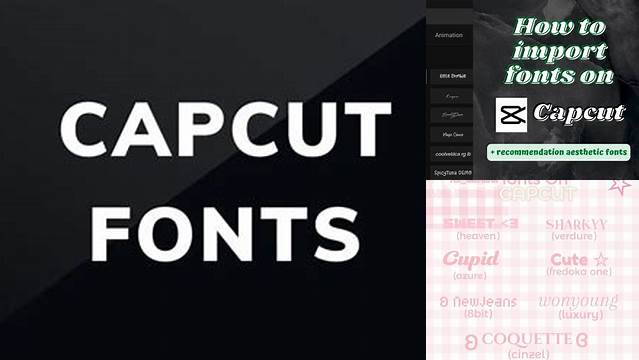
CapCut Fonts: Level Up Your Videos!
Hey everyone! Are you ready to spice up your CapCut game? Choosing the right font can seriously transform your videos, making them pop and grabbing your audience's attention. It’s like the secret ingredient that takes your content from 'meh' to 'WOW'! In this guide, we're diving deep into the world of cool fonts to use on CapCut, giving you the inside scoop on what works best and how to use them like a pro. Whether you're a seasoned video editor or just starting out, this is your ultimate resource. So, buckle up, because we're about to make your videos look amazing!
1. The Importance of Font Choice in CapCut Videos
Okay, guys, let’s talk font fundamentals. Choosing the right font is way more important than you might think. It’s not just about picking something pretty; it's about enhancing your message and making your videos more engaging. Think of your font as the voice of your video. It sets the tone and helps your viewers understand what you're trying to convey. A playful font might be perfect for a comedy skit, while a sleek, modern font works wonders for a business promotion. Get it wrong, and your video could look unprofessional or even confusing. Get it right, and boom, you’re golden! The right font can significantly impact how your audience perceives your content, so let's explore how font choices affect your viewers. When you select cool fonts to use on CapCut, you need to think about the message you want to convey. Are you aiming for fun, serious, informative, or something else? The font's personality should match your video's overall vibe. A bold, chunky font might be ideal for a title or a punchy statement, while a more delicate script font could suit a romantic scene or a heartfelt message. Remember, consistency is key. Stick to a limited number of fonts throughout your video to maintain a cohesive look and avoid visual clutter. Too many fonts can make your video look messy and unprofessional. So, take the time to experiment and find the perfect font combination that reflects your style and enhances your content. Remember, it's all about making your videos look as attractive as possible.
2. Top Trendy Fonts for CapCut: The Hottest Picks
Alright, let's get into the fun stuff: the fonts themselves! We've compiled a list of the most popular and trendy fonts that are guaranteed to make your CapCut videos stand out. These cool fonts to use on CapCut are all the rage, and for good reason. We're talking about fonts that are not only visually appealing but also versatile enough to work in various video styles. The first must-have font is 'Montserrat'. It's a clean, modern sans-serif font that works like a charm in many situations. Perfect for clear and readable text, this font is incredibly versatile and looks amazing in both titles and body text. Next up is 'Poppins'. This font is known for its rounded letters, which give it a friendly and approachable feel. It’s excellent for creating a welcoming atmosphere, making it perfect for tutorials, how-to videos, or any content designed to connect with your audience. Then, we have 'Lato', another versatile font that is great for its readability. It has a balanced appearance, which makes it easy on the eyes, making it a solid choice for a variety of video content. Now, let's talk about 'Bebas Neue'. This font is a favorite for its bold and impactful design. Perfect for titles and headlines, it’s sure to make your text pop. If you're aiming for a stylish and elegant look, check out 'Raleway'. This font offers a sophisticated feel. 'Open Sans' is another favorite. It's incredibly versatile and is ideal for all kinds of content. It’s clean, modern, and works well for body text and titles. When it comes to cool fonts to use on CapCut, these are your go-to choices! Take some time to experiment with these fonts, and you'll find that they're perfect for elevating your video content. And the best part? All of them are easily accessible within CapCut, so you can get started right away.
3. Classic Fonts That Never Go Out of Style in CapCut
Sometimes, you can't beat the classics. These timeless fonts have been popular for years and continue to be reliable choices for your CapCut projects. They're tried and true, offering a sense of sophistication and clarity that's always in style. For classic fonts, think about 'Helvetica'. This is the king of clear communication, known for its simplicity and readability. It's a fantastic choice for professional-looking videos. Another reliable choice is 'Arial'. It's similar to Helvetica in terms of clarity, but it is more widely available. Its familiarity makes it a safe and effective choice for various types of video content. If you're looking for a touch of elegance, consider 'Times New Roman'. This serif font gives your text a traditional, refined look, which is great for a serious topic. But remember that, while classic fonts are generally very good options, they can also be very boring. But if you want to ensure that your audience understands you clearly, then you need to choose these fonts. These cool fonts to use on CapCut are not meant to be flashy or eye-catching. Instead, they are meant to make sure your audience understands the message you are trying to convey. Another choice would be 'Roboto'. This is a modern take on classic fonts, which is perfect for any modern-style video. For a more playful choice, we also have 'Comic Sans MS'. This is a very interesting choice since it is one of the most hated fonts. However, if you are trying to create a comedic video, this font might do the trick! All of these classic fonts are available on CapCut.
5. Font Combinations: Pairing Fonts for Maximum Impact in CapCut
Choosing a single font is only half the battle. Mastering font combinations is where the real magic happens. Pairing fonts correctly can elevate your videos by creating visual interest and guiding the viewer's eye. The key is to find fonts that complement each other, without clashing. A good rule of thumb is to mix and match fonts with contrasting styles. For example, pair a strong sans-serif font for headlines with a more elegant serif font for the body text. A great pairing would be 'Bebas Neue' for headlines and 'Open Sans' for the body text. Another winning combo is 'Montserrat' for titles and 'Lato' for text. You can create visually appealing content with the right font combinations. When you select cool fonts to use on CapCut, remember that your font pairing should reflect your video’s content and mood. For example, a travel vlog might use a playful font for the title and a clear, readable font for the descriptions. On the other hand, a business presentation might go for a clean and modern sans-serif font. Experiment with different combinations and see what looks best for your videos. Create a mood board or a style guide for your videos. This way, you can visualize your font pairings before you create your videos. Remember that font pairing is all about balance. A balanced font combination will create harmony in your videos, making them more engaging and easier to watch.
6. Font Size and Readability: Making Your Text Easy to Read in CapCut
Readability is king! No matter how cool your font is, if your audience can't read it, it's useless. Font size is a critical aspect of readability. Make sure that your text is large enough to be seen clearly on different screen sizes. Use a larger font size for titles and headlines, and a slightly smaller size for the body text. Pay attention to the spacing between the letters (kerning), words (tracking), and lines (leading). These elements greatly affect readability. When you select cool fonts to use on CapCut, you must ensure that all of these factors are considered. Adjust the kerning and tracking to ensure the letters are neither too close nor too far apart. Similarly, set the leading to give your text enough breathing room. Another crucial factor is the background. Make sure your text contrasts well with the background. Avoid using light text on a light background, or dark text on a dark background. A drop shadow or a slight outline can improve the readability of your text on complex backgrounds. Choose fonts that are designed for clear communication. Simple, clean fonts with a high x-height (the height of the lowercase letters) tend to be more readable. Don't clutter your video with too much text. Keep your messages brief and to the point to avoid overwhelming your viewers. Remember, the goal is to enhance your message, not to distract from it. Test your videos on different devices to ensure your text is readable across all screen sizes.
7. Animation and Font Effects: Bringing Your Text to Life in CapCut
Text animation is where the fun begins! CapCut offers a variety of animation and text effects that can take your videos to the next level. By animating your text, you can grab your viewer's attention and add visual interest to your content. CapCut allows you to choose how your text appears, moves, and disappears. Try out different animations to see what works best. You can have your text fade in, slide in, bounce, or even explode onto the screen. Experiment with these effects to find the perfect match for your videos. Also, use text styles to make your text look unique. Text effects such as shadows, glows, and outlines can greatly enhance the readability and appearance of your text. Make sure to use these effects sparingly, as too many can make your video look cluttered. When you choose cool fonts to use on CapCut, add animation and text effects to make the text more interesting. Use the appropriate animation for each video. A subtle fade-in might be perfect for a calm, relaxing scene. For a more dynamic video, a sliding or bouncing effect might work better. Experiment with the speed of your animations. A slow animation can create a sense of elegance, while a fast animation is more energetic. Remember that text animation is a powerful tool that can significantly enhance your videos. Use it to grab your audience's attention and make your content more engaging. However, make sure to use it tastefully, and that it complements your content.
8. Color Choices: Enhancing Your Fonts with the Right Colors in CapCut
Color plays a huge role in how your audience perceives your video, and it can significantly impact the effectiveness of your fonts. The right color choices can make your text pop and enhance your overall visual appeal. Start by choosing colors that complement your background and video's overall theme. For a professional look, stick to a limited color palette and use colors that are easy on the eyes. Use high contrast between your text and the background for readability. Light text on a dark background or dark text on a light background usually works best. Don’t be afraid to experiment with color. CapCut offers a variety of color options. Try different colors and combinations to see what looks best for your video. When you select cool fonts to use on CapCut, you also need to think about the meaning of each color. Certain colors evoke different emotions, so choose colors that match the mood of your video. For example, red can be used for excitement and passion, while blue conveys a sense of trust and calmness. Keep your brand in mind. If you have a brand, use your brand colors in your videos to make them instantly recognizable. Consistency in color usage helps build brand recognition. Avoid using too many colors. Stick to a limited color palette to maintain a clean and professional look. Use color sparingly to highlight important text or add emphasis. Consider the use of gradients. Gradients can add visual interest to your text, making it more appealing. However, use them carefully and make sure they complement your overall design. With the right color choices, your fonts will look amazing!
9. Font for Titles vs. Body Text: Choosing the Right Font for Each Purpose in CapCut
When it comes to font selection, different fonts work best for different purposes. Titles and body text require different considerations. Titles are designed to capture attention and make a statement. Body text is about readability and clarity. A bold and striking font is usually a great choice for titles, something like 'Bebas Neue' or 'Impact'. Make sure the title is easy to read and eye-catching. Use a different font for the body text. The font must be easy to read at various sizes, such as 'Open Sans' or 'Lato'. The font should be versatile enough to be used for multiple purposes. The best approach is to pair a strong title font with a clean and readable body text font. This creates a visual hierarchy that helps viewers understand your content. When you select cool fonts to use on CapCut, keep in mind that different fonts have different personalities. Some are bold and dramatic, while others are subtle and refined. Select the font that best suits the style of your video. Make sure to have consistency. Stick to a limited number of fonts throughout your video. This way, the video will have a unified design. Remember, the combination of the right font for the title and the body text will make your video look professional and well-designed.
10. Using Fonts to Create a Brand Identity in Your CapCut Videos
Consistency is key when it comes to branding. If you're creating content consistently, then you need to use fonts to establish a unique brand identity. Your font choices should be consistent across all your videos. This helps viewers recognize your content instantly. Choose a font that reflects your brand's personality. Is your brand fun and playful, or professional and sophisticated? Select fonts that match your brand's vibe. Use the same fonts for your titles, body text, and any other text elements. This consistency strengthens your brand identity. When you select cool fonts to use on CapCut, stick to a limited number of fonts. A well-defined brand can be established by two or three fonts. Experiment with color. Your color choices will strengthen your brand identity. Use your brand colors to make your videos recognizable. Make sure that your font choice aligns with your brand's target audience. Consider the demographic of your audience. If you're targeting a younger audience, you might choose a more playful font. For a more mature audience, select a font with a more refined appearance. Make your videos look unique by using the right fonts. Remember that fonts play a critical role in brand recognition.
11. Best Fonts for Different Video Genres in CapCut
Every video genre has its own stylistic needs, and the right font can enhance the viewing experience. For example, if you're making a travel vlog, consider fonts that convey adventure and excitement. 'Anton' and 'Oswald' are good choices, which give you a sense of wanderlust. For beauty and fashion videos, use fonts that are stylish and modern. 'Poppins' and 'Raleway' would work perfectly. In the fitness and health niche, select fonts that are clean, clear, and easy to read. 'Montserrat' and 'Open Sans' will work perfectly. When you select cool fonts to use on CapCut, you should also consider the genre of the video. For cooking videos, use fonts that are inviting and friendly, such as 'Lato' or 'Roboto'. For business and marketing content, select fonts that are professional and clean. 'Helvetica' and 'Arial' work perfectly. If you are creating educational videos, pick a font that is clear and easy to read. 'Open Sans' or 'Lato' would be excellent choices. Remember that font selection is genre-specific. So, select the right fonts to engage the audience. For each video, match the font with the mood of your video. A good font creates a good video.
12. Avoiding Common Font Mistakes in CapCut
Even experienced video editors can make font mistakes, so let's look at some of the most common ones. One common mistake is using too many fonts. It can create a cluttered and unprofessional look. Stick to a limited number of fonts to maintain consistency. Another is poor readability. Always make sure your text is easy to read. Use sufficient font size, contrast, and spacing. Poor contrast is a common mistake. Make sure your text contrasts with the background. When you select cool fonts to use on CapCut, test your video on different devices. Another mistake is using fonts that are too flashy or distracting. The font should complement your video, not compete with it. Avoid using overly complex or decorative fonts for body text. These are hard to read and can make your video look amateurish. Ignoring brand guidelines is also a mistake. Always use the fonts that align with your brand identity. Failing to consider your audience is another error. Your fonts should resonate with your target audience. Avoid these mistakes to create videos that are visually appealing and effective.
13. Font Resources: Where to Find Free Fonts for CapCut
Finding free fonts is easier than ever! Here are some excellent resources for discovering fantastic fonts that you can use in CapCut: First, we have Google Fonts. This is one of the most popular and reliable sources for free fonts. Google Fonts offers a vast library of fonts. Also, all the fonts are licensed for commercial use, making it a great choice for video creators. Next, we have DaFont. This is another great website, offering a wide range of free fonts, from classic to unique styles. However, always check the license of each font, as some may have restrictions on commercial use. Then we have Font Squirrel. Font Squirrel is known for its high-quality fonts, many of which are free for commercial use. They also offer a convenient tool to test fonts. When you select cool fonts to use on CapCut, you need to choose the fonts in the right place. Other great resources include 1001 Fonts, FontSpace, and Behance. Always check the license for each font, and make sure you can use it in your video projects. Downloading from reliable sources helps ensure you're getting safe, high-quality fonts. Also, read the terms of service carefully, as some fonts may require attribution. With these resources, you can find a great selection of free fonts and elevate your video content.
14. Font Usage for Call-to-Actions (CTAs) in CapCut Videos
CTAs are essential for directing your audience and driving engagement, and the right font can make a big difference in their effectiveness. Use a clear and bold font for your CTAs, so they are easy to read. Make your CTAs stand out by using contrasting colors. Use text effects, such as shadows and outlines, to enhance their visibility. Place your CTAs strategically in your video to make them visible. Use a font that reflects your brand's style. Keep your CTAs concise and to the point. The language must be clear and direct. When you select cool fonts to use on CapCut, you need to consider the format of your video. Whether you're using a voice-over or on-screen text, make sure your CTA is easy to understand. Create a sense of urgency. Use action verbs to encourage viewers to take action. Remember that your CTAs are designed to guide your audience. Use fonts effectively and encourage engagement.
15. The Psychology of Fonts: How Fonts Influence Viewers in CapCut
Fonts have a psychological impact on viewers, and understanding this can significantly improve your video content. Different fonts evoke different emotions and associations. For example, a serif font, like Times New Roman, can convey a sense of tradition, reliability, and sophistication. Sans-serif fonts, like Helvetica, are seen as modern and clean, making them ideal for contemporary content. The style of the font can also influence how viewers perceive your message. A playful font, such as Comic Sans, might be suitable for a light-hearted video. A bolder, more angular font can create a sense of strength and energy. When you select cool fonts to use on CapCut, you can use fonts that are designed to influence viewers. By understanding the psychology of fonts, you can choose the right fonts to align with your message. Make sure you are consistent in your font use. Your font choices will send a clear message to your audience. Remember that fonts can influence your audience's emotions and perceptions. When you use the right fonts, you can enhance your video content.
16. Advanced Font Techniques: Kerning, Tracking, and Leading in CapCut
Once you master the basics, you can use advanced font techniques to fine-tune the appearance of your text. Kerning refers to the spacing between individual letters. Adjusting kerning can improve the visual balance and readability of your text. Tracking is the spacing between all the letters in a word or phrase. Adjusting the tracking can help you fit text into a specific space or enhance readability. Leading is the spacing between lines of text. Proper leading is crucial for readability, especially in longer blocks of text. When you select cool fonts to use on CapCut, experiment with these techniques. Adjusting these settings is essential for achieving a professional look. Make sure you understand how kerning, tracking, and leading affect the appearance and readability of your text. This way, you can effectively use these techniques to enhance the quality of your videos. With practice, these advanced font techniques will become second nature.
17. Font Trends in Video Editing: What's Hot Right Now in CapCut
Font trends change frequently, and staying up-to-date can keep your videos looking fresh and modern. Currently, minimalist fonts are very popular. These fonts are clean, simple, and easy to read. They work perfectly for modern and contemporary content. Bold fonts are also trending. These fonts make titles and headlines pop. They are excellent for grabbing the viewer's attention. Vintage fonts are also trending in video editing. These fonts give your video a retro aesthetic. When you select cool fonts to use on CapCut, keep up with current font trends. Monospaced fonts are also gaining popularity. These fonts look unique and stylish. These fonts are a good choice for adding a modern touch to your videos. Custom fonts are also trending. This can help you create a unique brand identity. Consider the current trends. By embracing current font trends, you can make sure your videos are looking great.
18. Troubleshooting Font Issues in CapCut: Common Problems and Solutions
Even the most experienced editors encounter font issues, and knowing how to troubleshoot them is crucial. One common issue is missing fonts. This may occur when you're using a font that isn't installed on your device. Make sure the font is installed correctly. If you're using a custom font, try restarting the CapCut app. Sometimes fonts can appear distorted or pixelated. Make sure your font files are in the correct format. If the text isn't displaying correctly, check your project settings. Another common problem is readability. Make sure your text is large enough and contrasts well with the background. When you select cool fonts to use on CapCut, you might face problems. Always check the font settings and make sure that your text is easy to read. Also, ensure you are using the latest version of CapCut. Keep these solutions in mind to fix any font issues.
19. Font for Subtitles and Captions: Ensuring Readability in CapCut
Subtitles and captions are essential for accessibility and engagement, and the right font choice is crucial for their effectiveness. Choose a clear, simple font for subtitles, such as Open Sans or Lato. Make sure your font is easy to read on various screen sizes. Use a font size that is large enough. Adjust the font size depending on the size of your screen. Ensure that your subtitles have good contrast with the background. Use a drop shadow or outline to improve readability. When you select cool fonts to use on CapCut, the subtitles will look great. Subtitles should be clear. The primary goal is to make your content more accessible. Use a consistent font throughout your video. This enhances the professional look of your video. Ensure that your subtitles are synced correctly. Clear subtitles enhance your video's ability to reach a wider audience. Good subtitles make your content more engaging.
20. Using Fonts to Create a Sense of Movement and Dynamism in CapCut
Fonts can do more than just display text; they can create a sense of movement and dynamism within your videos. Choose fonts with a dynamic feel. Some fonts have a natural sense of movement. This will enhance your video’s dynamism. Use animation. By animating your text, you can make it appear to move across the screen. Experiment with different animations. Make sure to sync your text with the video's content. Create a cohesive experience. When you select cool fonts to use on CapCut, you must choose the right fonts. Using animations can grab your audience's attention. Also, use color to enhance the sense of movement. Use vibrant colors. Colors can create a strong sense of dynamism. By incorporating these techniques, you can use fonts to enhance the visual appeal of your video.
21. The Role of Fonts in Storytelling in Your CapCut Videos
Fonts are powerful storytelling tools. They can convey emotions and set the scene for your story. Use fonts that match the tone of your story. The fonts should also match the overall message. The font can evoke different emotions. A script font can suggest romance. A bold font can convey action and excitement. When you select cool fonts to use on CapCut, you must consider that the font helps to set the tone of your story. Think about your target audience. The font should also be suitable for your target audience. Use your fonts consistently. Consistent font use creates a sense of flow. Use fonts to highlight key moments. Draw the viewer's attention to specific parts of your story. Use different fonts to represent different characters or perspectives. This will give a sense of uniqueness. Fonts can enhance your storytelling.
22. Font Legibility vs. Font Style: Finding the Right Balance in CapCut
Finding the right balance between legibility and style is essential for creating videos that are both visually appealing and easy to understand. Legibility refers to the clarity of the font. Style is about the aesthetic appearance of the font. Always prioritize legibility. Make sure your text is readable on any screen. For the body text, prioritize legibility. For titles and headlines, you can lean toward style. Use a more stylish font. When you select cool fonts to use on CapCut, make sure the fonts are balanced. Consider the overall design of your video. The style should complement the overall design. Experiment with different font combinations. Ensure that your font choices are consistent throughout your video. Finding the right balance between legibility and style will enhance the effectiveness of your videos.
23. Font Copyright and Licensing: Using Fonts Legally in CapCut
Understanding font copyright and licensing is crucial for legal and ethical video creation. Fonts are intellectual property. When you select cool fonts to use on CapCut, always respect font licenses. Check the license of each font. The license will show you can use the font. Some fonts are free for commercial use. Some fonts are free for personal use. Make sure that you understand your license. Always give proper attribution. Many fonts require attribution to the designer. Always adhere to these terms. If you create content commercially, ensure that you have the rights to use the font. By using fonts legally, you will protect yourself from any issues.
24. Fonts in Transitions and Overlays: Integrating Text Seamlessly in CapCut
Seamlessly integrating text into transitions and overlays can significantly enhance the visual appeal of your videos. Choose fonts that complement your transitions. The font should also match the overall design of your video. Use text effects to add interest to your transitions. You can make the transitions more dynamic. Also, use a consistent font throughout your transitions. The consistency creates a sense of flow. When you select cool fonts to use on CapCut, create a professional look. You can use transitions to highlight key information. Use transitions creatively. They can make your video more engaging. The right font in transitions and overlays will enhance your video.
25. Font Selection for Social Media Platforms: Optimizing for Different Platforms in CapCut
Different social media platforms have different visual characteristics, so optimizing your font selection for each is essential for maximum impact. On Instagram, consider fonts that are stylish and visually appealing. Use a font that will resonate with your target audience. On YouTube, use a font that is clear and easy to read. Also, make sure that your fonts can be seen on smaller screens. On TikTok, you should choose fonts that are dynamic and eye-catching. Use a font that grabs your audience's attention. When you select cool fonts to use on CapCut, ensure that your font selection is suitable for social media. Test your video on multiple devices. The video needs to look good across the platforms. By optimizing your font choice, you'll get the best results.
26. Font Accessibility: Designing for Viewers with Visual Impairments in CapCut
Font accessibility is crucial for ensuring that your videos can be enjoyed by a wide audience, including those with visual impairments. Choose fonts that are clear and easy to read. Avoid fonts that are overly stylized. Use a large font size. Use a font size that can be seen easily. Make sure there is enough contrast between the text and the background. Use high contrast to make the text easier to see. Make sure that your content is inclusive. When you select cool fonts to use on CapCut, make your content inclusive. The video should be accessible to everyone. By focusing on font accessibility, you can ensure that your content is accessible to everyone.
27. Using Fonts to Create a Sense of Urgency in CapCut Videos
Fonts can play a powerful role in creating a sense of urgency in your videos, encouraging viewers to take immediate action. Use bold and impactful fonts for your CTAs. The font should convey the urgency. Use vibrant colors to grab attention. Use action verbs and create a sense of urgency in your text. Make the CTAs stand out. When you select cool fonts to use on CapCut, you must add a sense of urgency. Also, limit the time the offer is available. Make it time-sensitive to create a sense of urgency. A sense of urgency will make your audience engage with your video.
28. Font Best Practices: Tips for Professional-Looking Videos in CapCut
Here are some best practices to help you create professional-looking videos using CapCut. Choose fonts that match your brand's personality. Select a limited number of fonts. Keep it simple, easy, and readable. Make sure that your text is easy to read. Test your videos on multiple devices. Use font effects sparingly. Be consistent. With these tips, you can create amazing videos. When you select cool fonts to use on CapCut, remember these best practices.
29. Combining Fonts with Other Visual Elements: Creating a Cohesive Design in CapCut
Combining fonts with other visual elements is key to creating a cohesive and engaging video design. Choose fonts that work well with your visuals. Use fonts that complement your colors. Create a consistent design. Align your text with the other elements. When you select cool fonts to use on CapCut, ensure all visual elements look well together. Ensure that your video looks great. All the elements should make a cohesive design.
30. The Future of Fonts in Video Editing: Emerging Trends and Innovations in CapCut
The world of fonts is always evolving, and staying ahead of emerging trends is essential for keeping your videos fresh and engaging. In the future, expect to see even more customizable fonts and advanced animation options. AI-powered font recommendations are also likely to become more prevalent, helping video editors find the perfect font combinations effortlessly. Interactive fonts will be used more to engage audiences. As technology advances, fonts will continue to play a vital role in video editing. When you select cool fonts to use on CapCut, be prepared to explore the latest innovations. Keep an eye out for new and creative ways to use fonts in your video content.